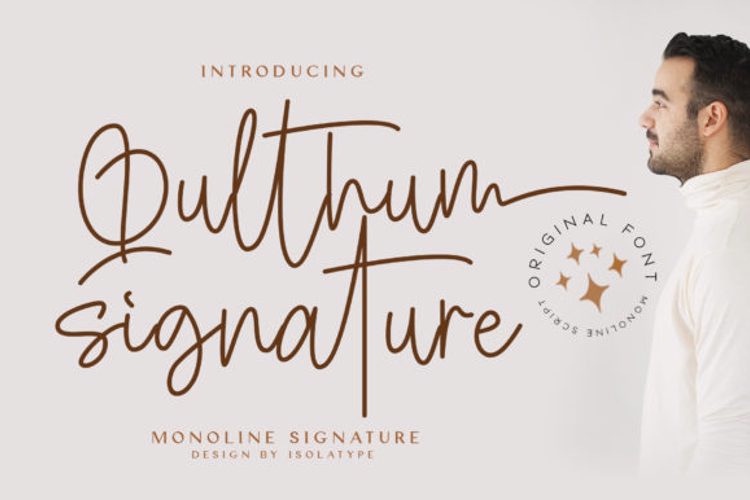
Qulthum Signature Font
About Qulthum Signature Font
Qulthum Signature is a flowing and thin lettered handwritten font. Trendy and stylish, this font will elevate each of your creations. Qulthum Signature is PUA encoded which means you can access all of the glyphs and swashes with ease!